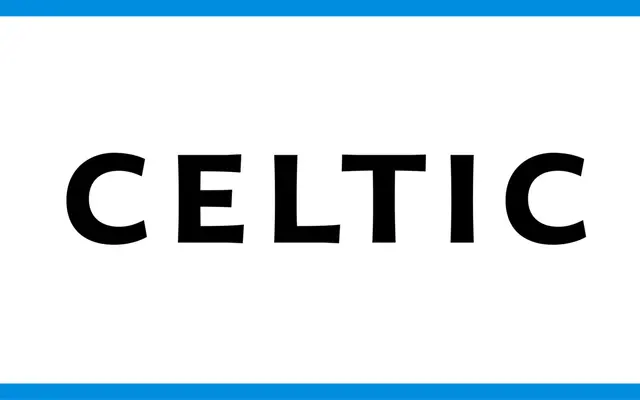
Organon
A paired sans and serif family by G-Type's Nick Cooke, sharing cap heights, x-heights and stem widths for seamless typographic pairing.
Designed by Nick Cooke of G-Type, Organon comprises a sans and a serif cut that share identical proportional values across cap height, x-height, stem width and ascender/descender metrics. This charity volume, released through the BuyFontsSaveLives campaign in aid of Cancer Research and Macmillan Cancer Support, includes Regular and Bold weights from each family, totalling four fonts. The matched proportions make it straightforward to mix the two styles across a single layout without visual inconsistency.
Organon is a paired sans and serif family; categorised as sans-serif as the sans is the lead style, with a companion serif sharing identical proportions. The humanist subcategory fits given the emphasis on legibility and elegance.